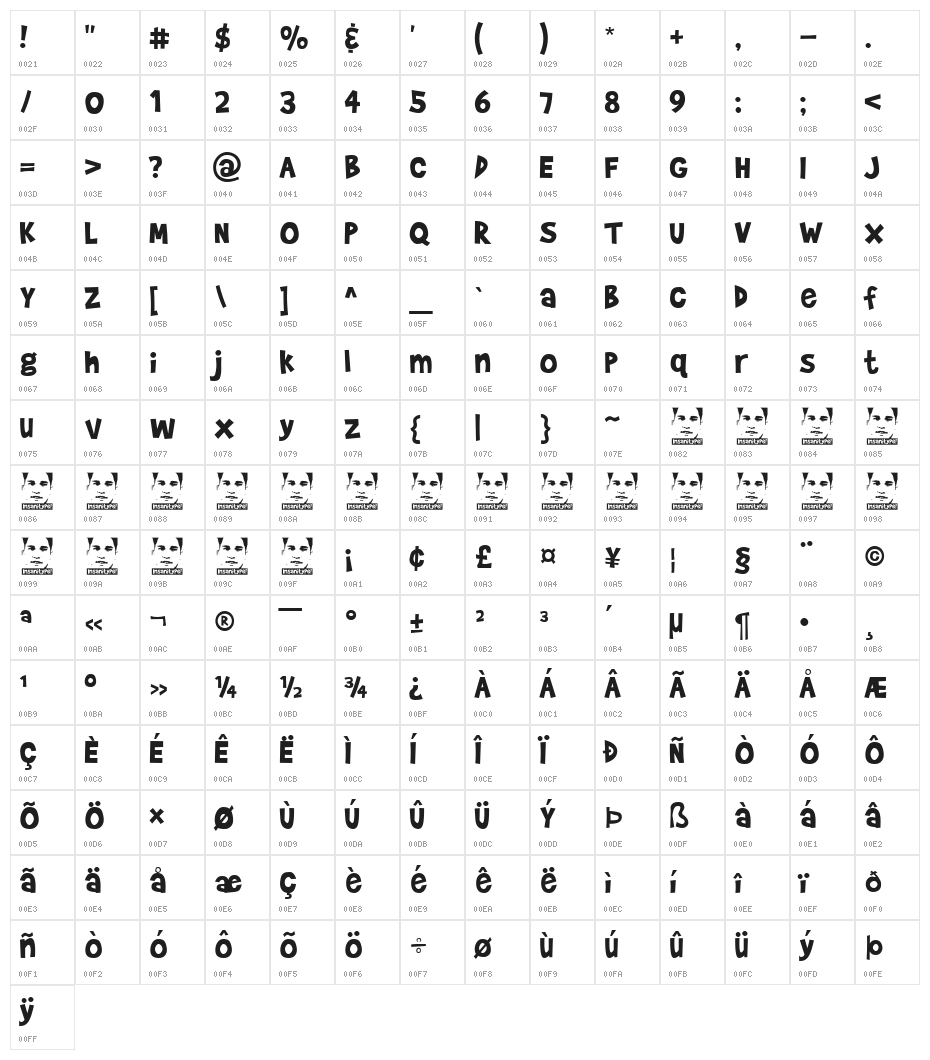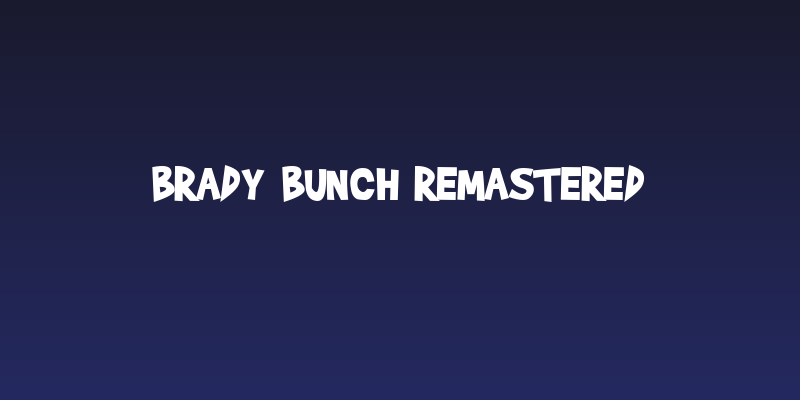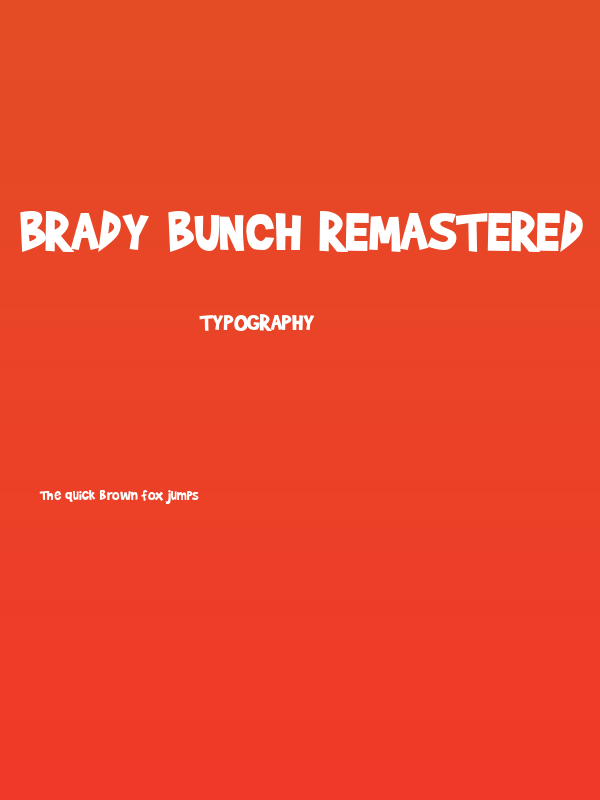
Brady Bunch Remastered Font
Brady Bunch Remastered Description
This playful and bold font features a whimsical, retro style reminiscent of the 1970s. The letters are characterized by their thick, rounded forms and slightly irregular shapes, giving them a hand-drawn appearance. The uppercase and lowercase letters maintain a consistent style, with exaggerated curves and a sense of movement. Numbers and special characters follow the same lively design, making the font suitable for creating a fun and engaging atmosphere. The overall look is informal and friendly, perfect for capturing attention and conveying a sense of nostalgia.
| Proposed Projects | Ideal for retro-themed designs, children's books, playful branding, and event posters. |